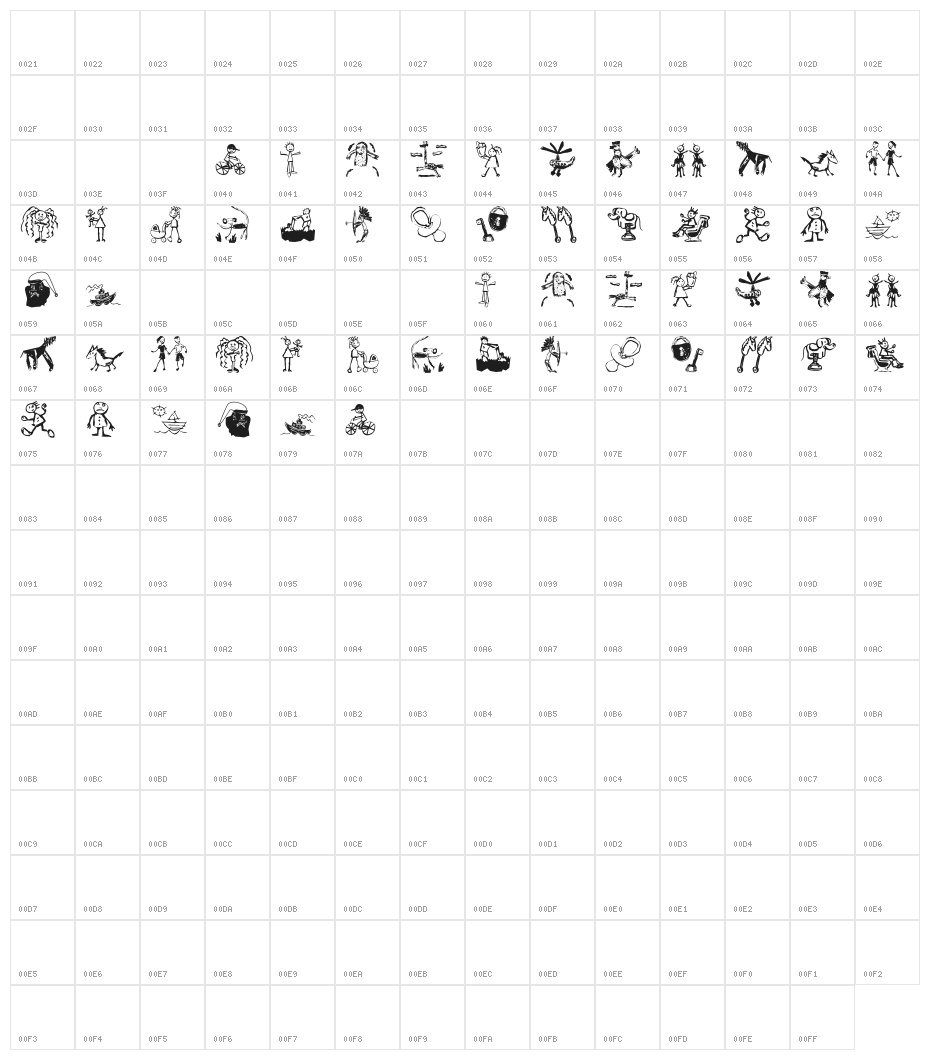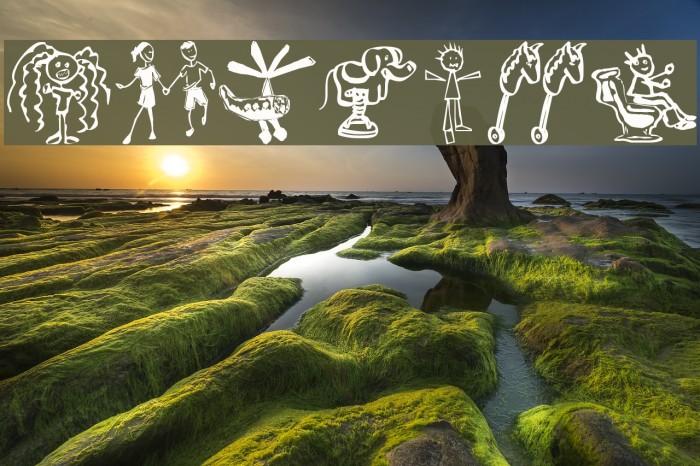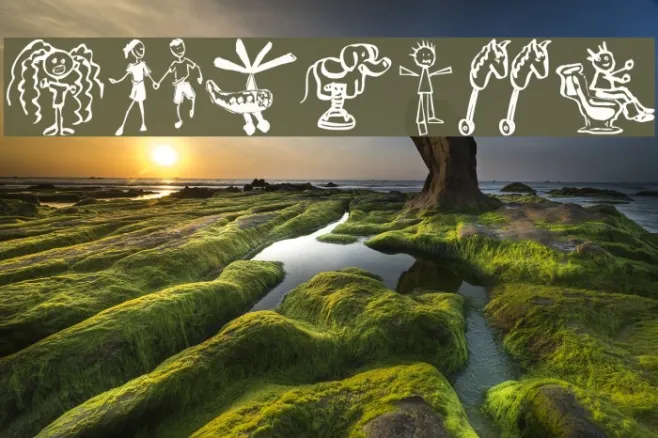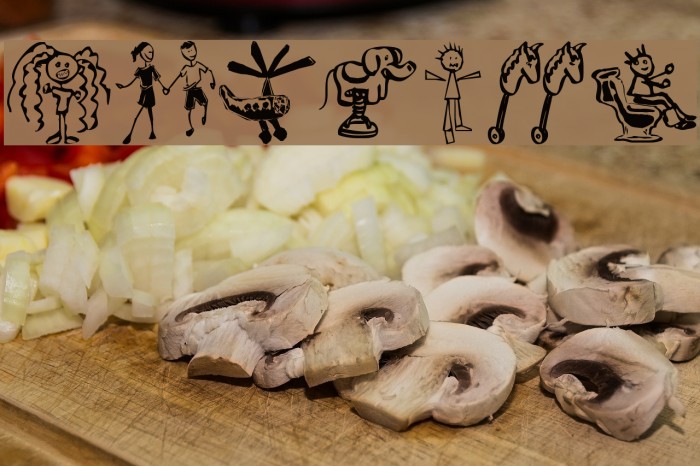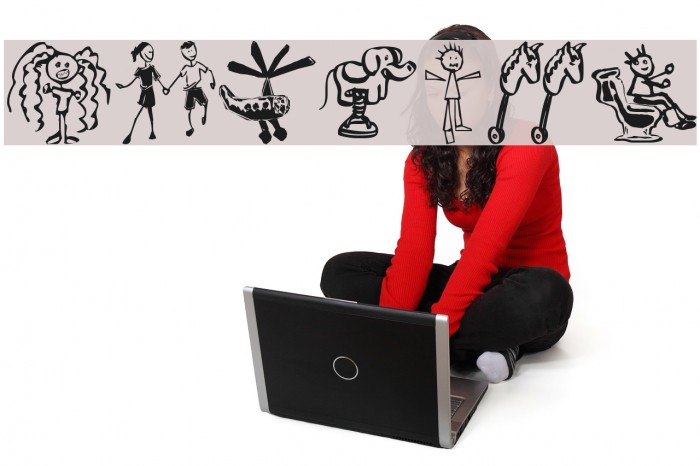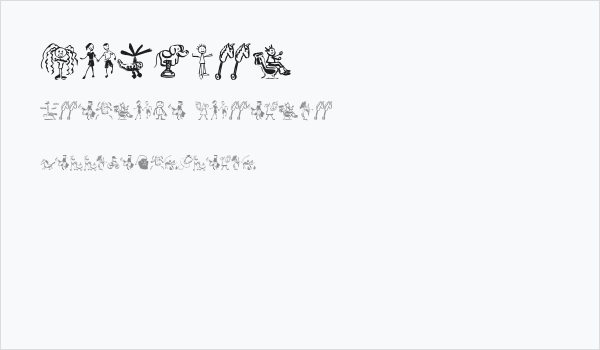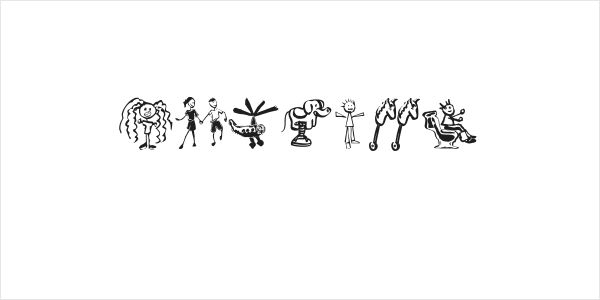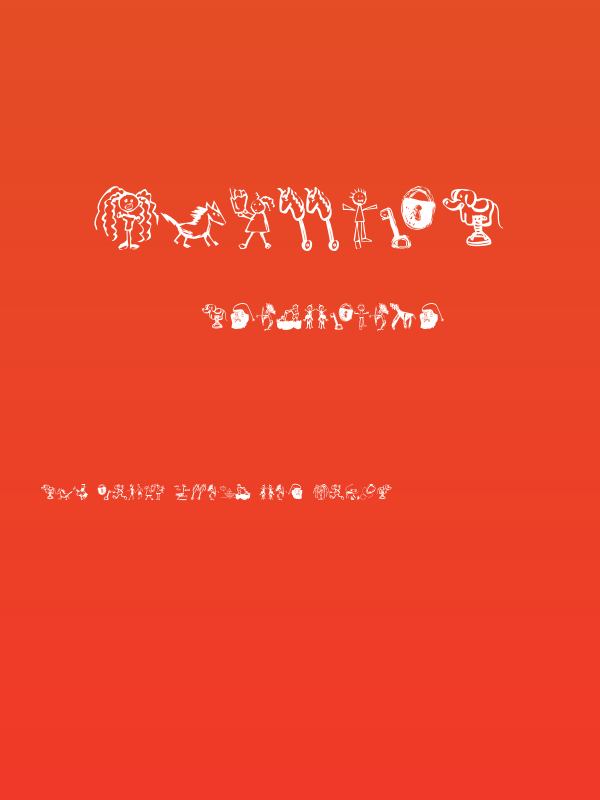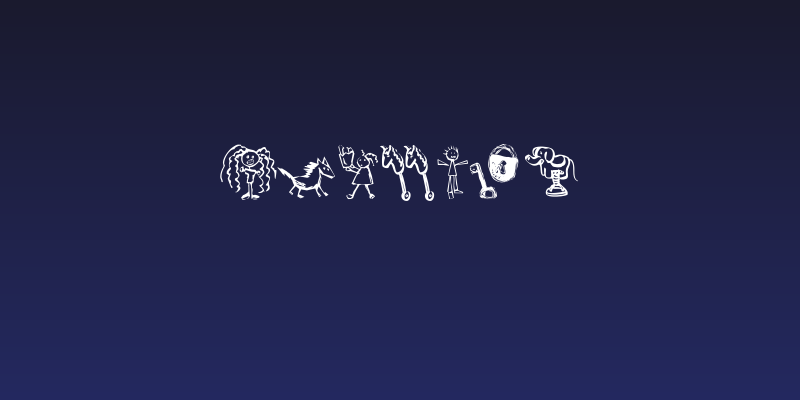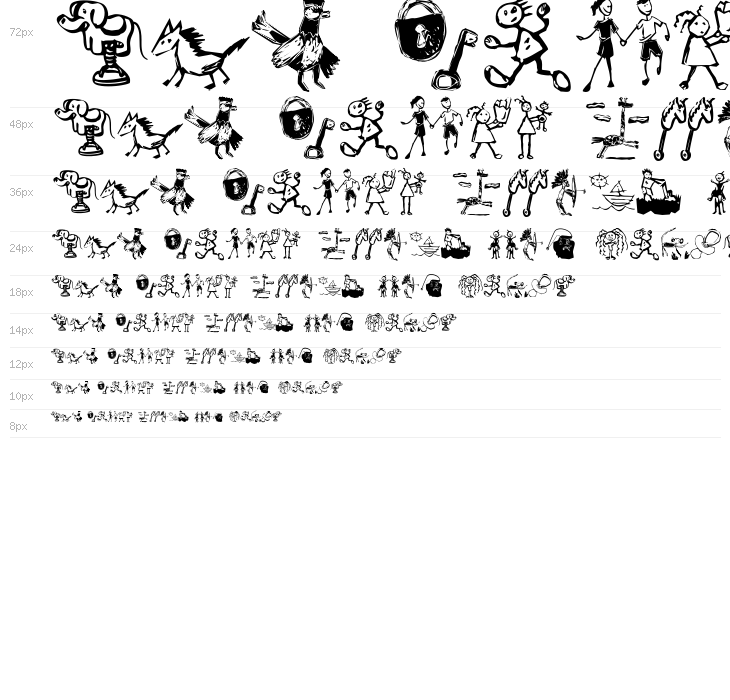
KidsArt Font
KidsArt Description
A playful, whimsical font composed of childlike doodles and drawings representing each character, featuring stick figures, animals, and imaginative scenes. The style mimics children's art with uneven lines and a hand-drawn, spontaneous feel.
| Overall Style | Playful, Whimsical, Hand-drawn |
| Use Case | Headlines, Posters, Children's materials, Creative projects |
| Proposed Projects | Children's books, educational materials, party invitations, playful branding, art projects. |